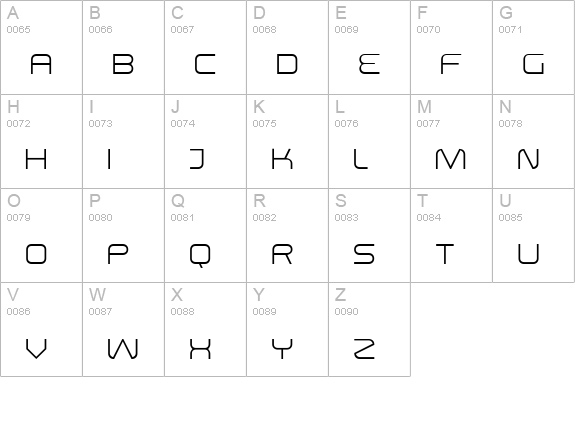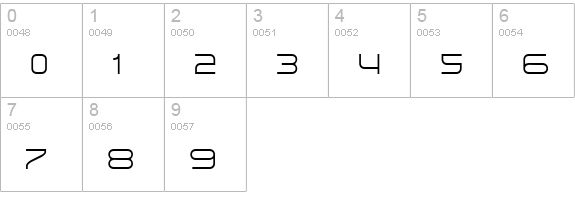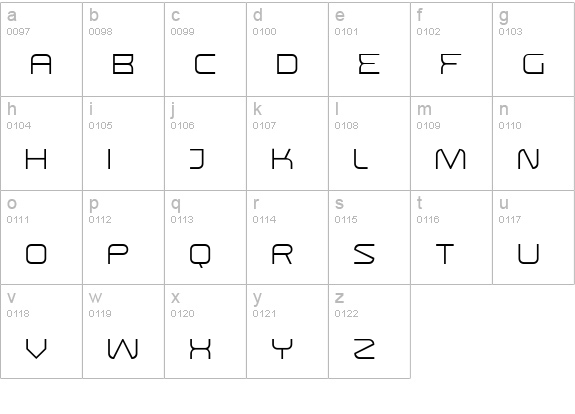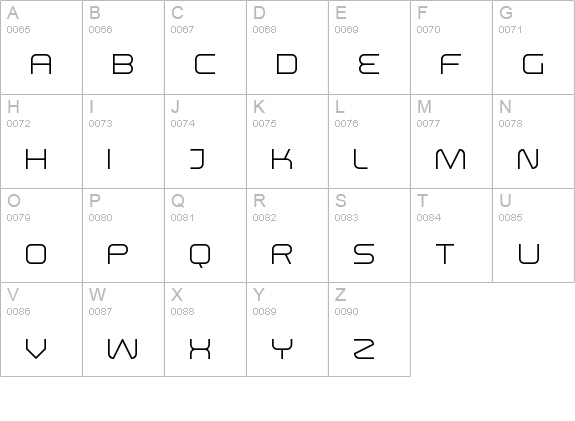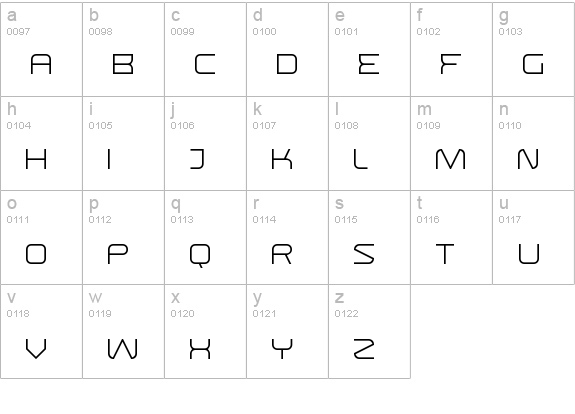
Swisz Thin is a delicate, low-contrast variant in the Swisz typeface family \xE2\x80\x94 well suited to fashion editorial, minimal branding, and high-contrast display.
Swisz Thin font is a modern and sleek typeface that exudes elegance and sophistication. With its clean lines and minimalist design, Swisz Thin is perfect for a wide range of design projects, from branding to editorial work. The thin strokes and subtle curves give this font a chic and contemporary look that will elevate any design. And the best part? Swisz Thin font is available for free download at FontsMarket.com! So you can add this stunning typeface to your font library without breaking the bank. Whether you're working on a logo, website, or print design, Swisz Thin will bring a touch of refinement and style to your projects. Download it now and start creating beautiful designs with this versatile and stylish font.